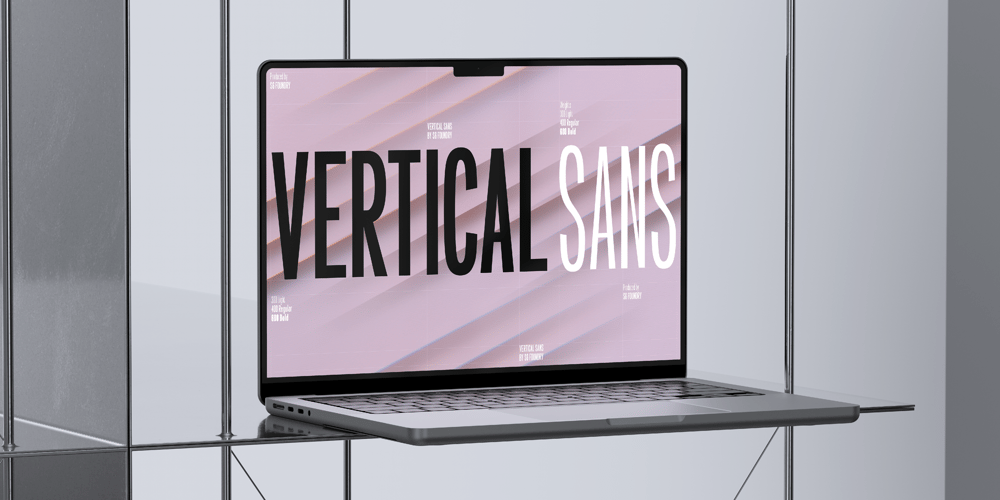
Vertical Sans Font Family was designed by Paul Henry Robb and published by S6 Foundry. Vertical Sans contains 3 styles and family package options. Vertical Sans is an extremely condensed sans set in 3 weights offering a balanced, stylish font perfect for branding and communications projects.